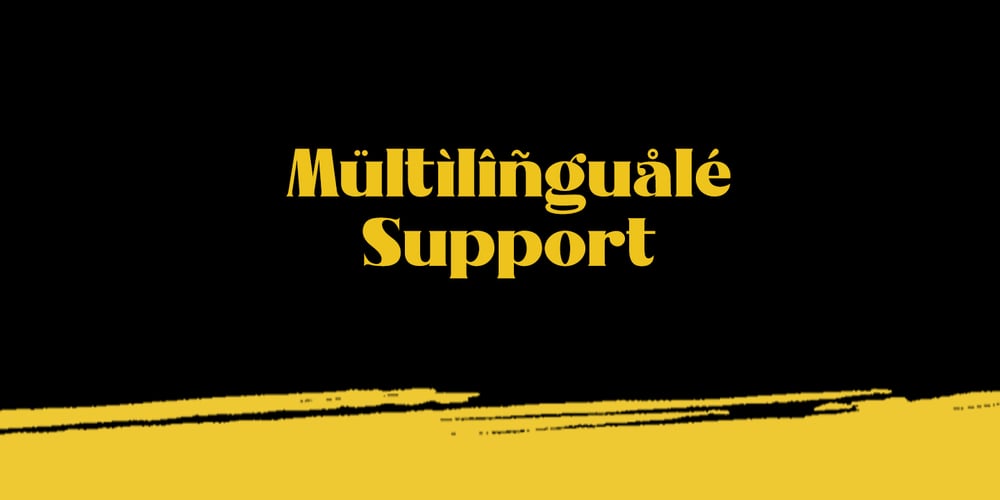
Nakone Font Family was designed by Suandana ipandemade and published by madeDeduk. Nakone contains 3 styles and family package options. Really excited to introduce Nakone, a luxury bold Serif with two styles: solid and stencil. A lot of stylish alternates will make this font suitable for your any design project. Features: UPPERCASE lowercase Number & Symbol International Glyphs Alternative Uppercase Alternative lowercase Ligatures If you need anything else just shoot me on email at: dedukvic@gmail.com or find more previews on my Instagram here : https://www.instagram.com/acekelgondolayu/?hl=en Hope you enjoy it.